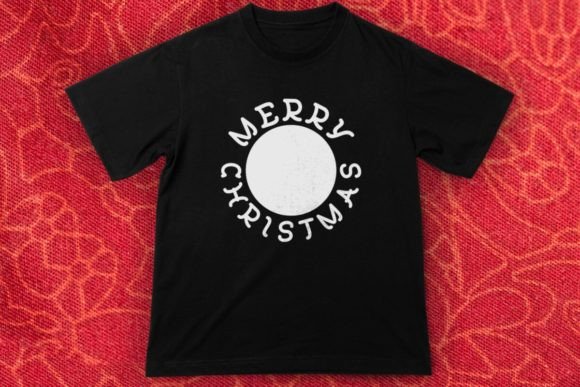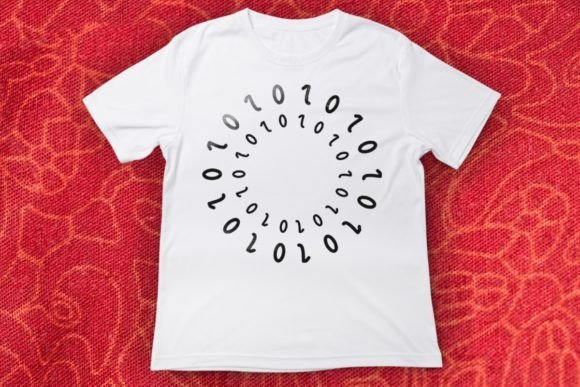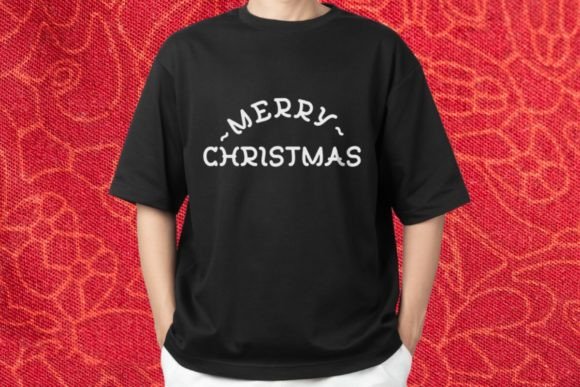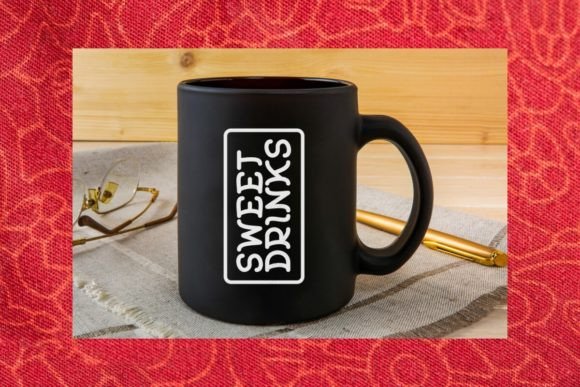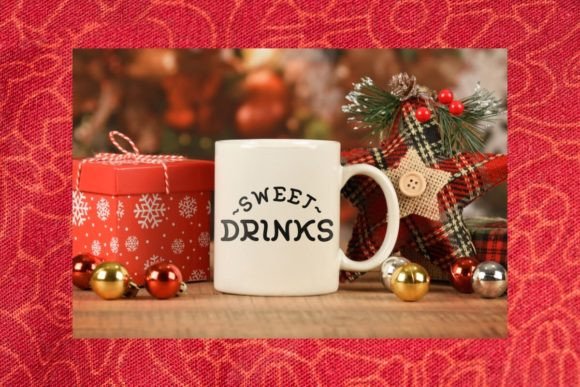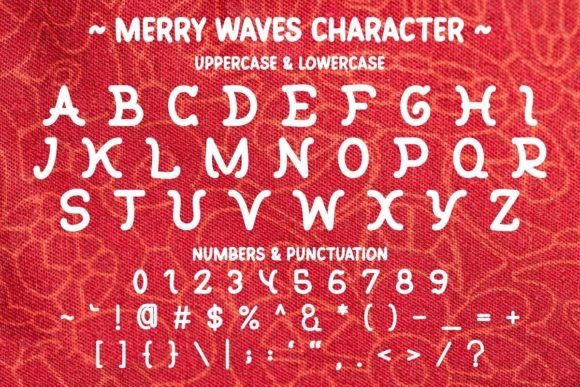
Introduction to Merry Waves Font Font
Fonts play a crucial role in design, and the Merry Waves Font font is a typeface that brings both character and versatility to any project. Whether you’re working on a branding project, a website, or a print design, the Merry Waves Font font offers a unique style that can elevate your work.
| π Font Name | Merry Waves Font |
| π€ Author | Pian45 |
Introducing βMerry Wavesβ, a delightful display font that brings the joyful essence of the holiday season to life.
This unique typeface, adorned with whimsical curves and playful waves, is designed to add a touch of festive charm to your Christmas-themed designs .
Key Features of Merry Waves Font Font
Why Choose Merry Waves Font Font?
The Merry Waves Font font is more than just a typeface β it’s a design tool that helps you communicate your message with style and clarity. Its unique character set and versatile design make it suitable for a wide range of applications, from elegant invitations to bold headlines.
With its carefully crafted letterforms and balanced proportions, the Merry Waves Font font ensures readability and visual appeal across all mediums.
What makes Merry Waves Font font special?
The Merry Waves Font font stands out with its unique design, exceptional readability, and versatility across various design applications.